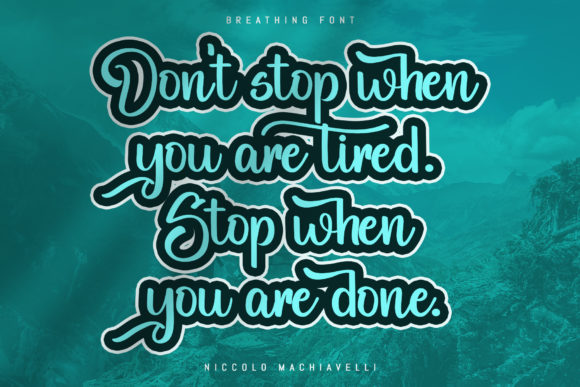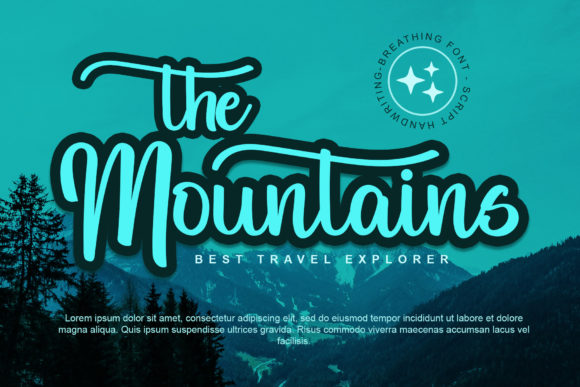
Breathing Font
db-ku.com - Script & Handwritten -- Breathing is a well-balanced and timeless handwritten font. It is the best choice for creating eye catching logos, branding and quotes. Every letter has a unique and beautiful touch, which will make your design come alive!